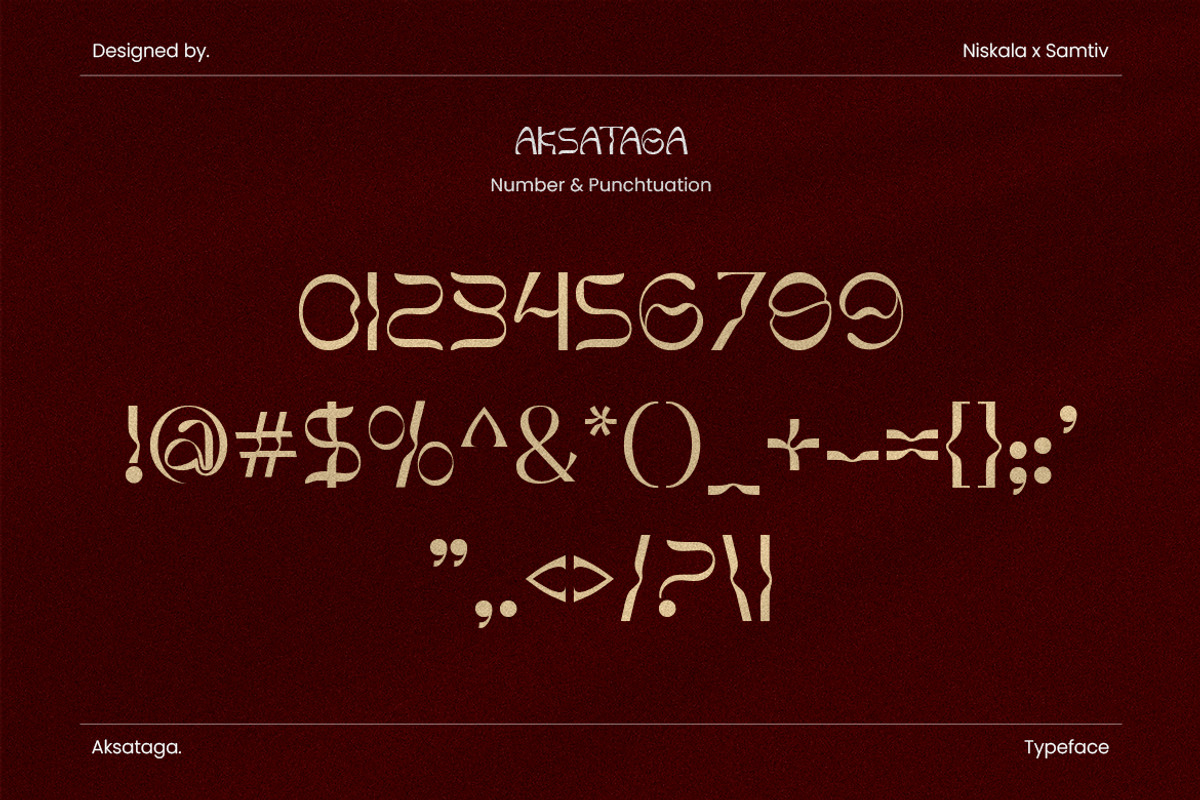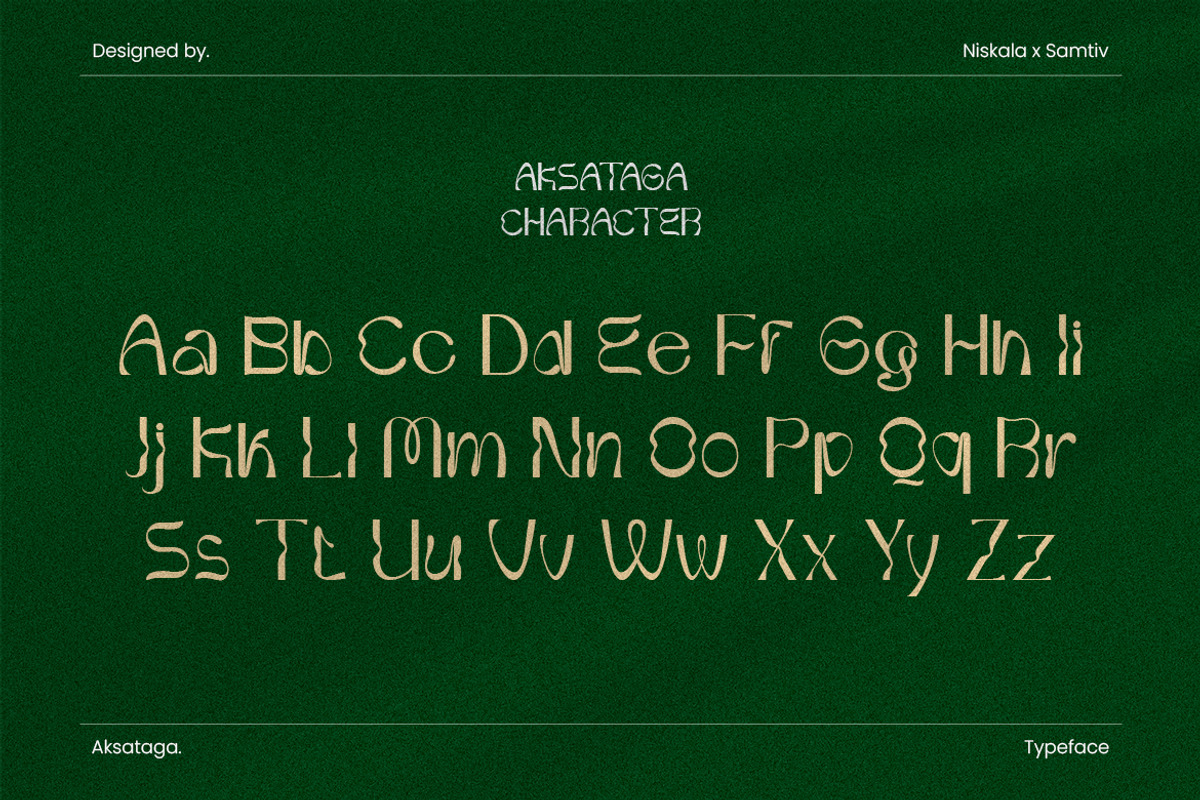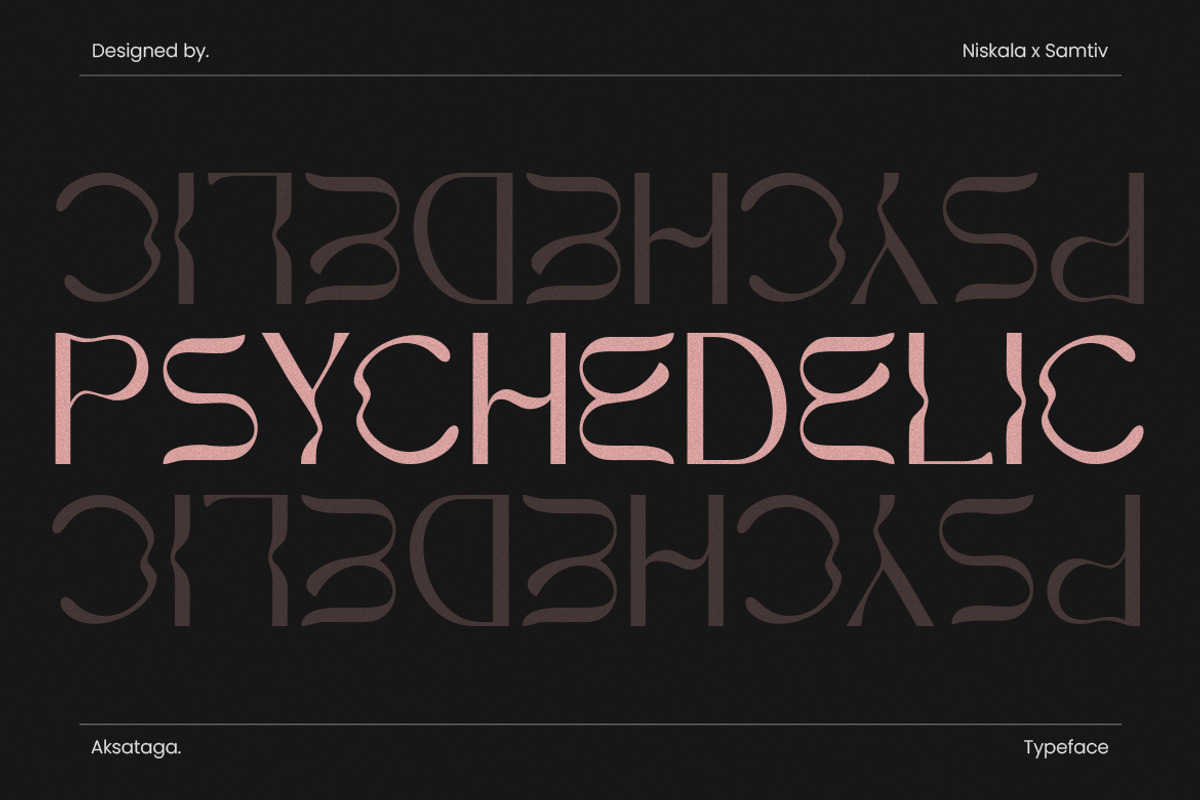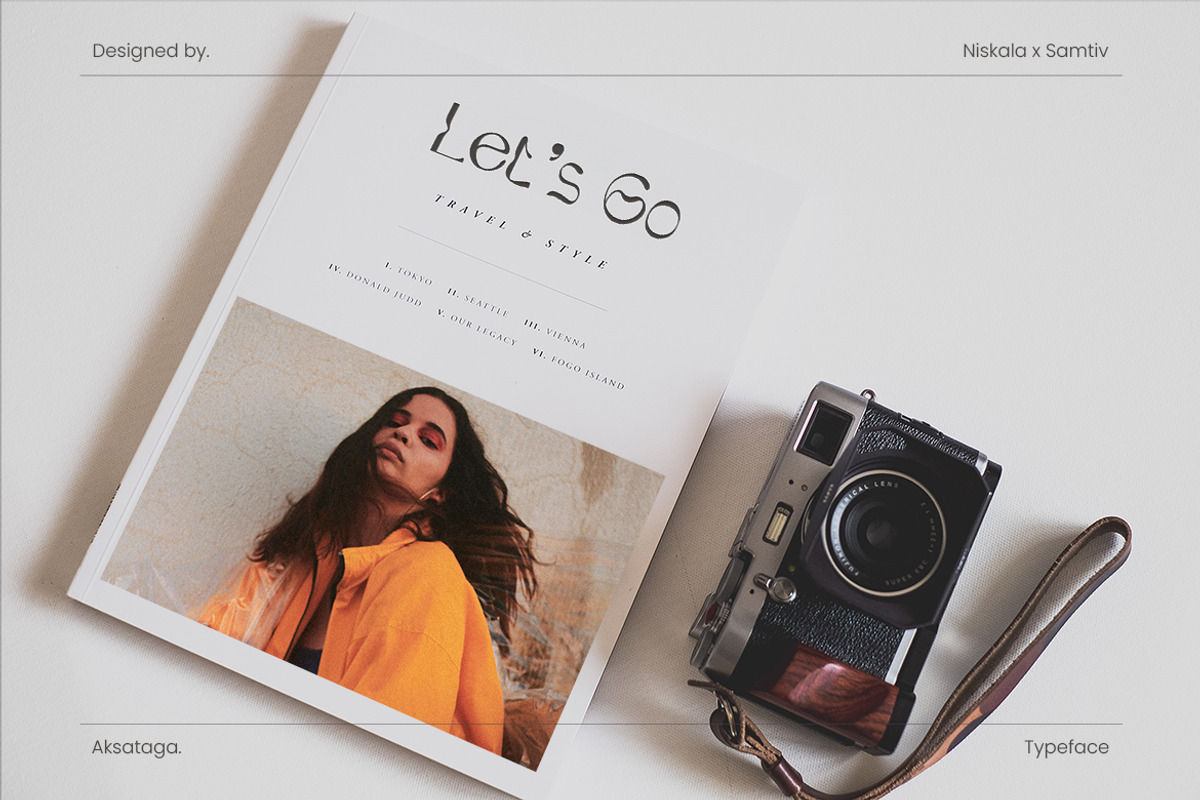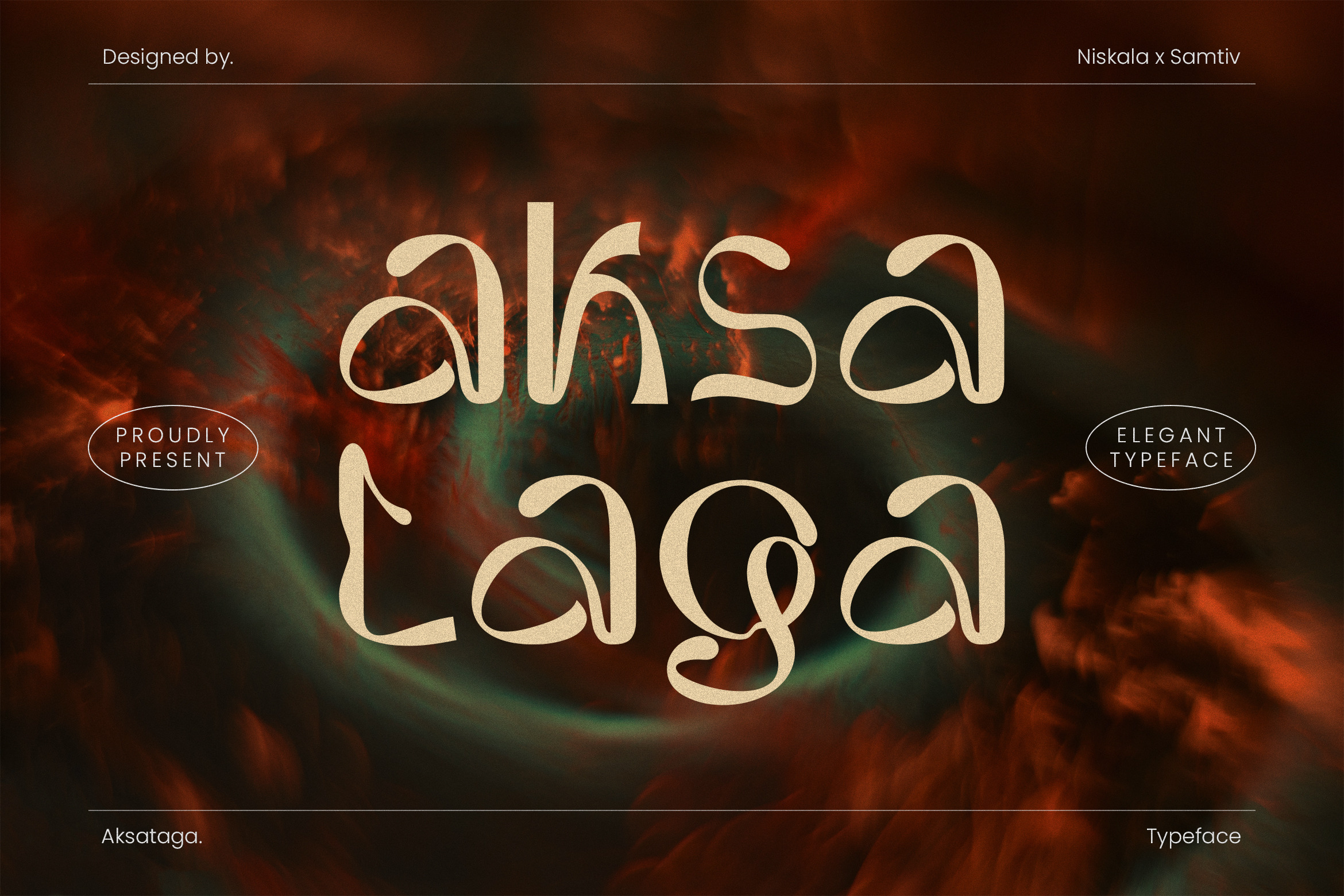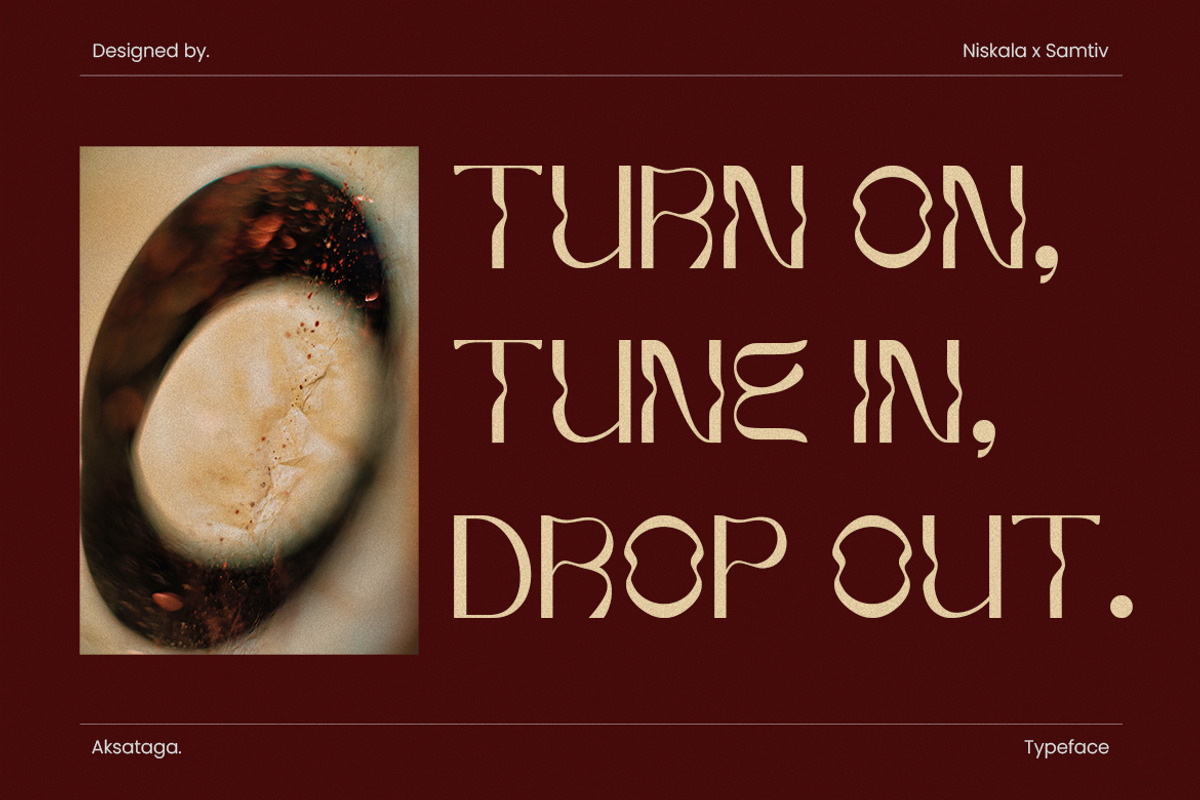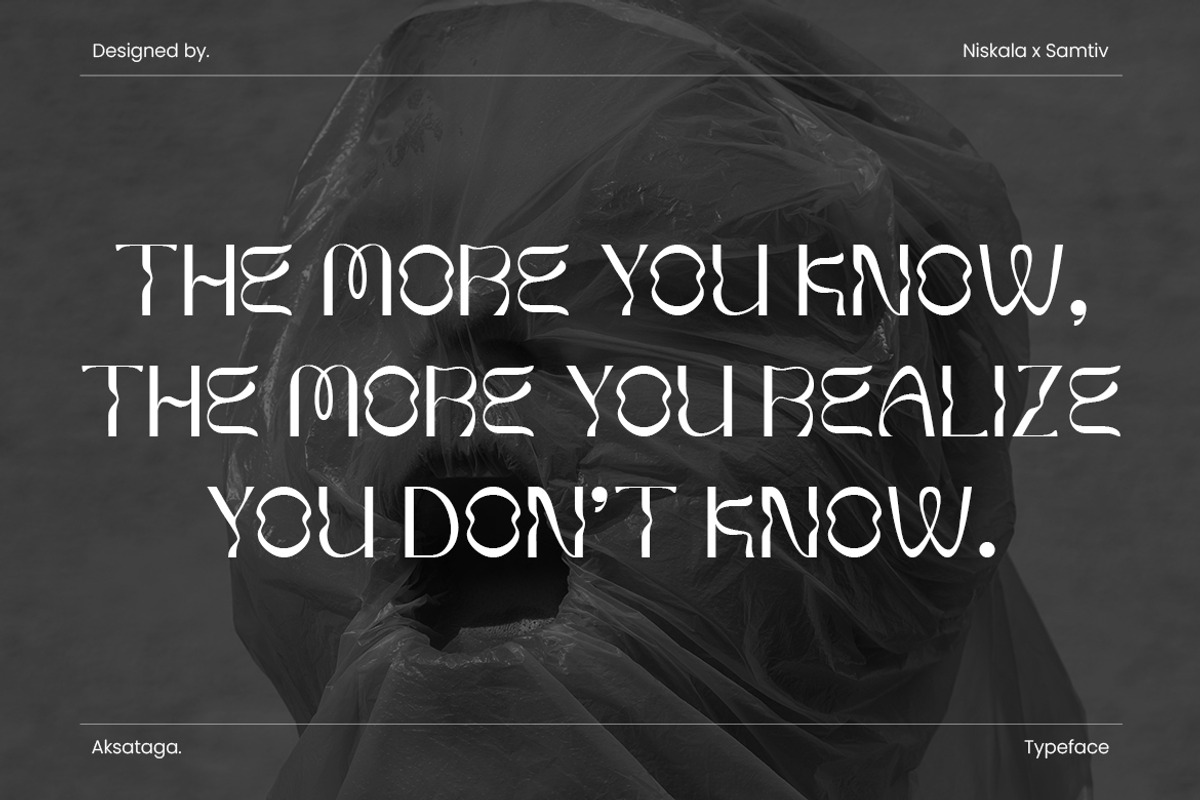
Aksataga - A Modern Classic Typeface
Aksataga is an awesome with modern classic cutouts, and a dynamic slant. Ideal for Poster titles, menu flyer, Packaging, Logo and monograms or other modern dynamic text. Aksataga compares favorably with legibility and size, creating the effect of power. Designed as a fast and dynamic font, but with a slightly different font design, check it out and grab it right away.